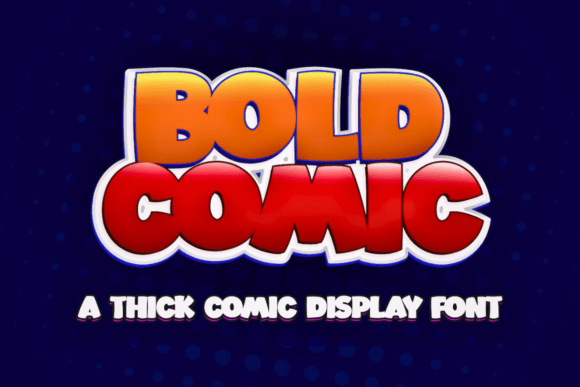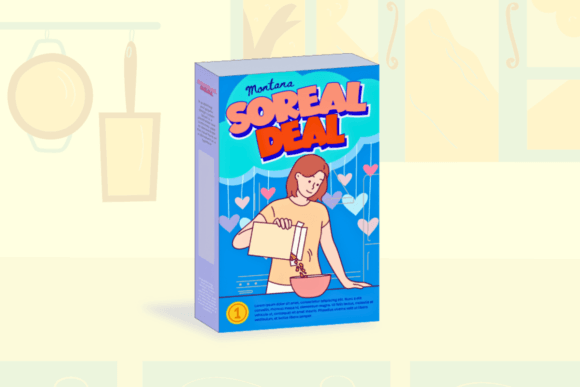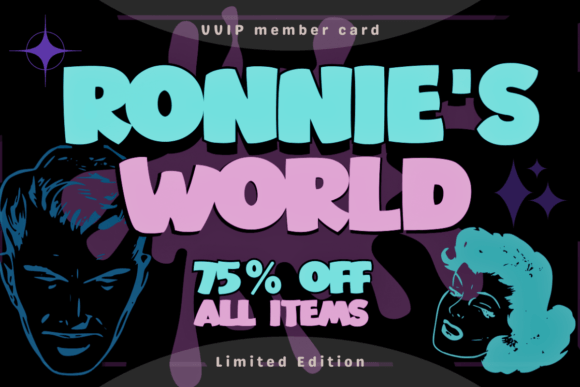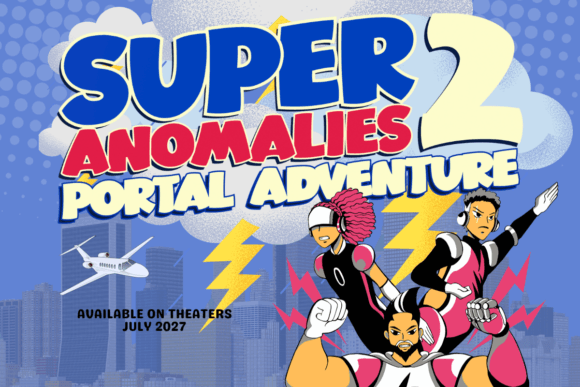
Bold Comic Font
Bold Comic is a bold and unique comic style display font. It will add an incredible touch to your designs. Use this strong character display font to each of your creative ideas and notice how it makes them stand out!